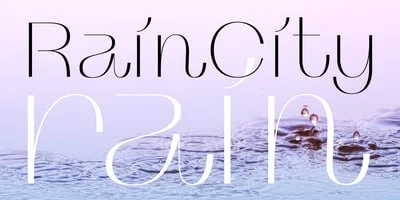
RainCity Font
The RainCity Font is a modern and stylish typeface, often characterized by its clean lines, minimalist aesthetic, and contemporary appeal. Imagine its sleek forms enhancing urban-themed branding, adding a sophisticated touch to architectural firm portfolios, or creating impactful titles for cutting-edge technology websites and apps. Its crisp edges and often tall, condensed structure also make it an excellent choice for fashion editorials, stylish event posters, sophisticated product packaging, and digital interfaces. Whether you're aiming for a chic, metropolitan vibe or a sleek, professional aesthetic, RainCity Font delivers with its distinctive style, ensuring your visuals are both refined and visually striking.
What makes RainCity Font so exciting is its effortless ability to convey a sense of modern sophistication and urban coolness. In a design landscape that values clean aesthetics and strong visual impact, this font stands out with its understated elegance and remarkable legibility. It’s more than just a typeface; it’s a design element that can instantly set a contemporary and forward-thinking tone for a project. RainCity Font offers designers the opportunity to create visuals that are both professional and visually arresting, making it an invaluable asset for those looking to communicate a sense of modern style and innovation.
The RainCity Font family is typically structured to offer a versatile range of weights and styles, enhancing its utility across various design applications. Beyond the primary RainCity Regular typeface, you might find companion styles such as RainCity Thin for a delicate touch, a more impactful RainCity Bold for emphasis, or a sleek RainCity Italic for dynamic flair. Given its modern appeal, the family might also include condensed versions for space efficiency or expanded versions for display purposes. These diverse family members provide designers with the flexibility to establish a clear typographic hierarchy and maintain a consistent, sophisticated urban aesthetic across all elements of their project, from elegant headlines to detailed informational text.
For projects aiming for a sleek, modern, and sophisticated urban feel, consider the captivating RainCity Font. It's an excellent choice to refine your designs.